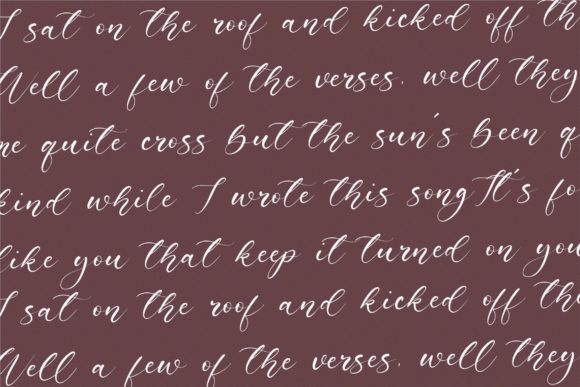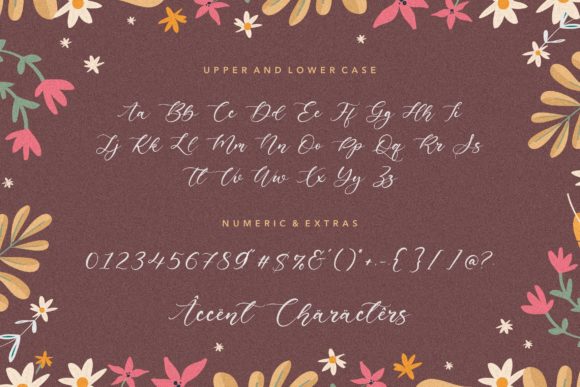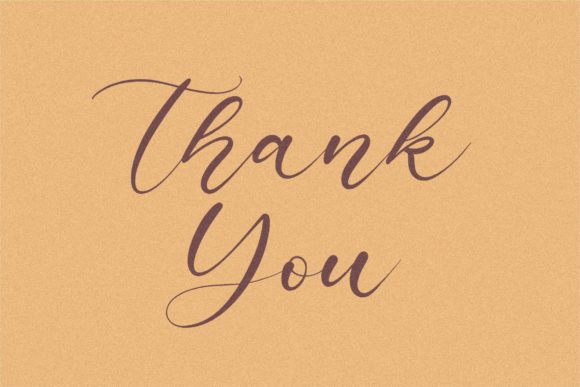
The Perfect Accessory for Your Designs
Have you ever stared at a blank page, waiting for inspiration to strike? It’s a moment every designer knows all too well. For me, it was a late night, a cup of coffee, and a desperate need to make my design stand out. That’s when I discovered Exotic Necklace Font – a thin and elegant handwritten font that instantly brought my ideas to life.
This beautiful font is designed to make your designs even more realistic and spectacular. Whether you’re creating a brochure, a logo, or a website, Exotic Necklace Font is the perfect accessory to elevate your work. Its unique, handwritten style adds a touch of sophistication and personality to any project, making it a valuable asset for designers who want to stand out from the crowd.
Exotic Necklace Font Key Features
- Unique Characteristics: The font features intricate, hand-drawn designs and ornate details, making it perfect for creating unique and eye-catching typography.
- Font Style: Script, Calligraphy, Decorative
Designer Review: Exotic Necklace Font
Overall, I found the Exotic Necklace Font to be a visually striking and unique addition to any design project. ✨ Its intricate, hand-drawn feel gives it a sense of luxury and sophistication that’s perfect for high-end fashion or jewelry brands. ✨ The font’s versatility also makes it suitable for a wide range of applications, from headings to body text.
However, there are some limitations to consider: ⚠️ The font may be difficult to read in smaller sizes or at a distance, which could impact its usability. Additionally, the intricate details may not be suitable for all design styles or themes. ⚠️ In certain contexts, the font’s exotic feel may come across as kitschy or over-the-top.
Here are some key features to keep in mind:
- Unique, hand-drawn feel
- Suitable for high-end fashion or jewelry brands
- Versatile for headings and body text
- May be difficult to read in smaller sizes or at a distance
- May not be suitable for all design styles or themes
Overall, I would recommend the Exotic Necklace Font for designers looking to add a touch of luxury and sophistication to their projects. However, it’s essential to consider the font’s limitations and ensure it aligns with the project’s tone and style.
Use Exotic Necklace Font for:
1. Fashion and jewelry branding
2. Travel and cultural marketing
3. Luxury and high-end product designs
For best results, pair Exotic Necklace Font with bold and colorful graphics, and use it for headings and titles to create a sense of sophistication and elegance.